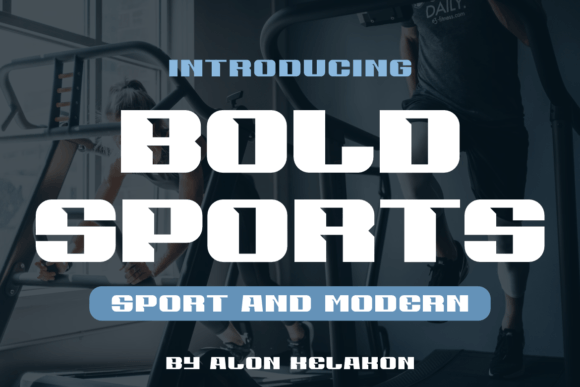
Voyage into the realm of dynamic typography with Bold Sports Font - a sans serif typeface that exudes power and athleticism. Its unwavering boldness takes center stage, commanding attention with every stroke. Crafted by the skilled hand of alonkelakon, this font is not just a collection of letters; it's an embodiment of force and energy.
With its crisp lines and sharp angles, Bold Sports Font carves a distinctive path, leaving an indelible mark on your designs. Whether you're crafting sports-themed projects, dynamic headlines, or attention-grabbing posters, this font will propel your message forward with unwavering vigor.
But what truly sets Bold Sports Font apart is its mastery over the letter "Y". It's not just a mere glyph; it's a symbol of triumph, a beacon of victory. The elongated ascender and the confident, unyielding tail create a visual spectacle that captivates and inspires.
Unlock the full potential of your design arsenal with Bold Sports Font. Its versatility extends far beyond the sports realm, seamlessly adapting to various design challenges. Unleash your creativity and explore new horizons, knowing that this font will faithfully accompany you on every step of your design journey.
So, embrace the boldness, embody the spirit of sport, and elevate your designs to new heights with Bold Sports Font. Let your creations resonate with power, ignite passion, and leave an unforgettable impression on your audience. Dare to be bold, dare to be distinctive – dare to unleash the power of Bold Sports Font today!